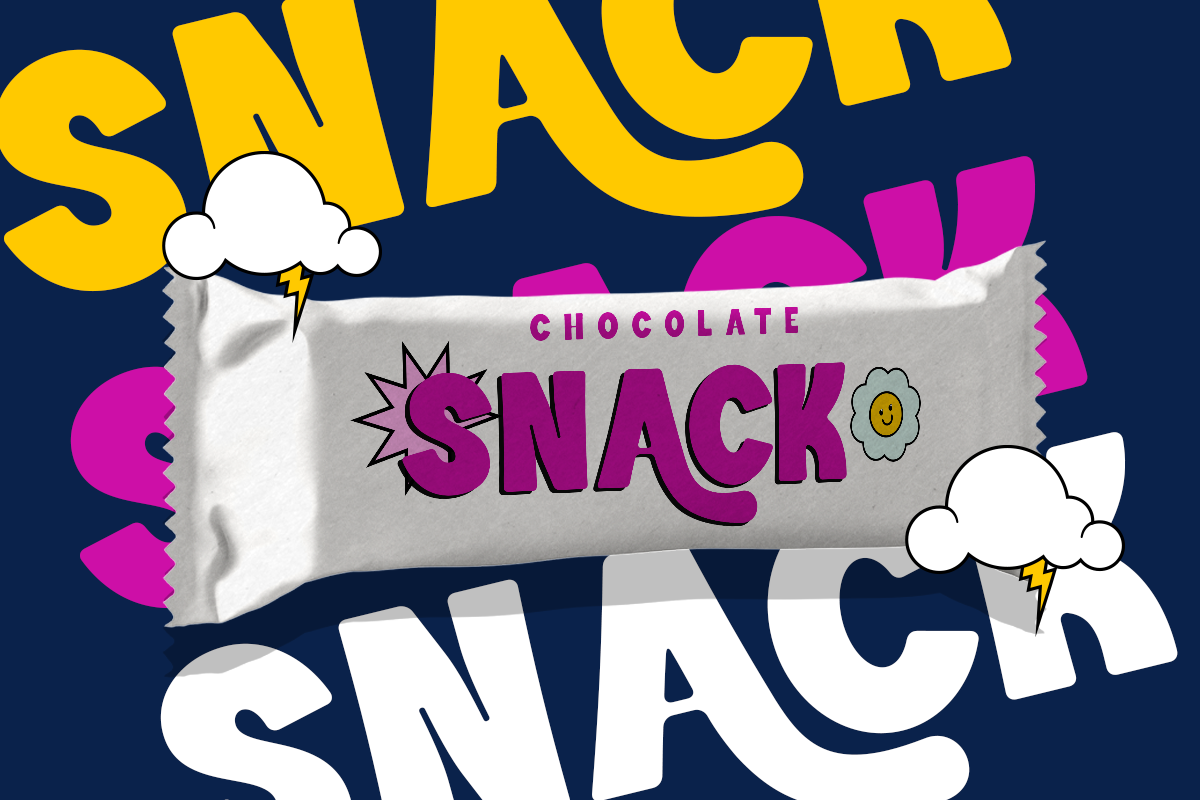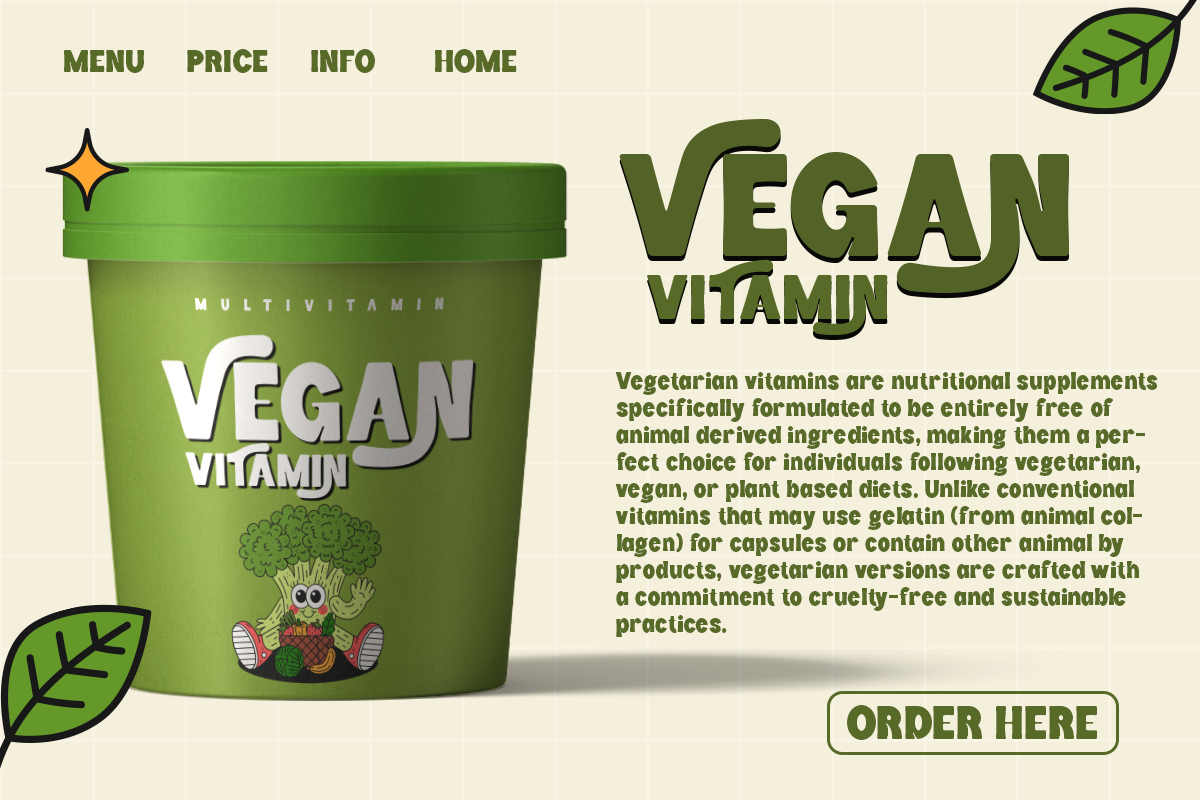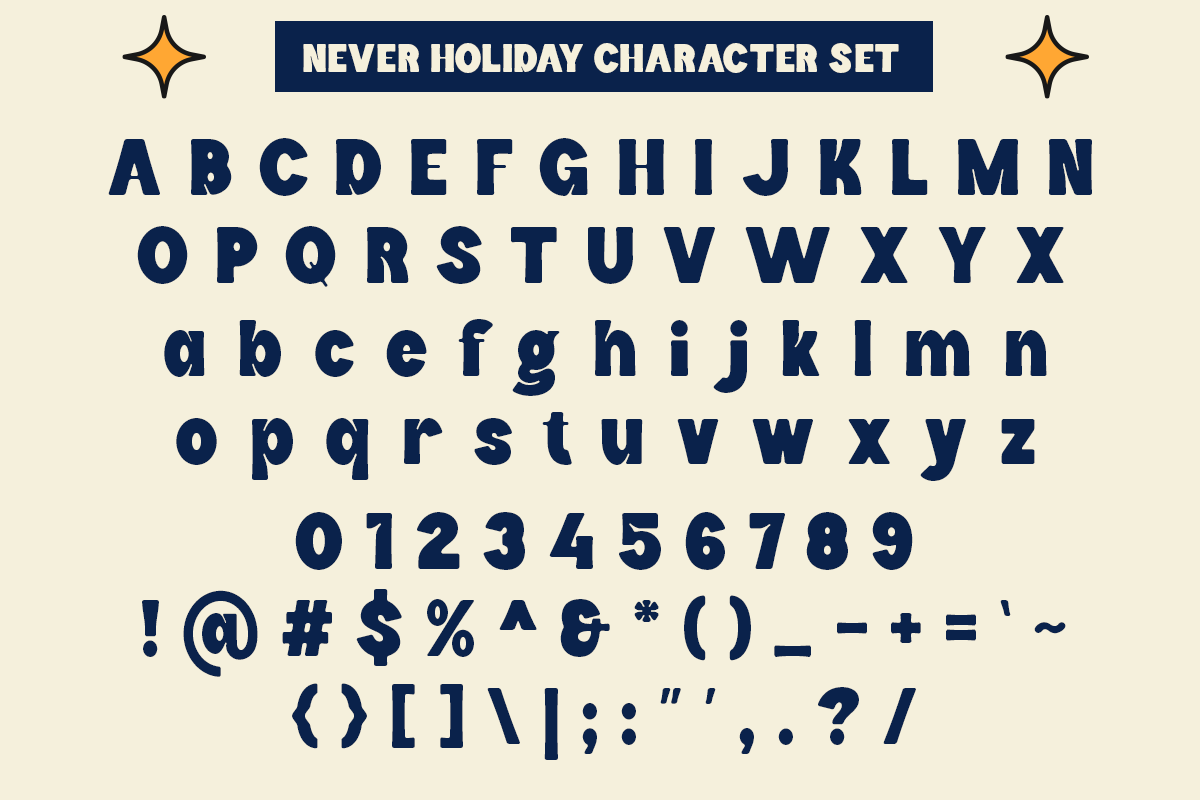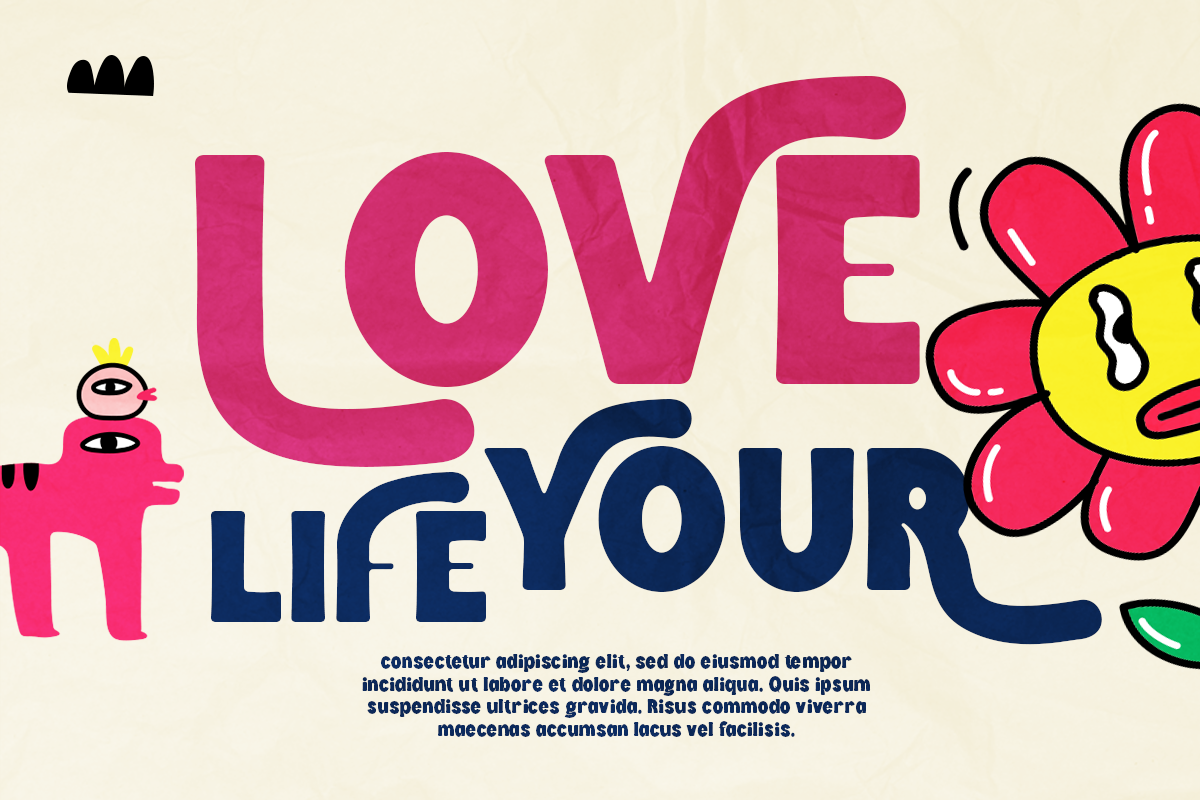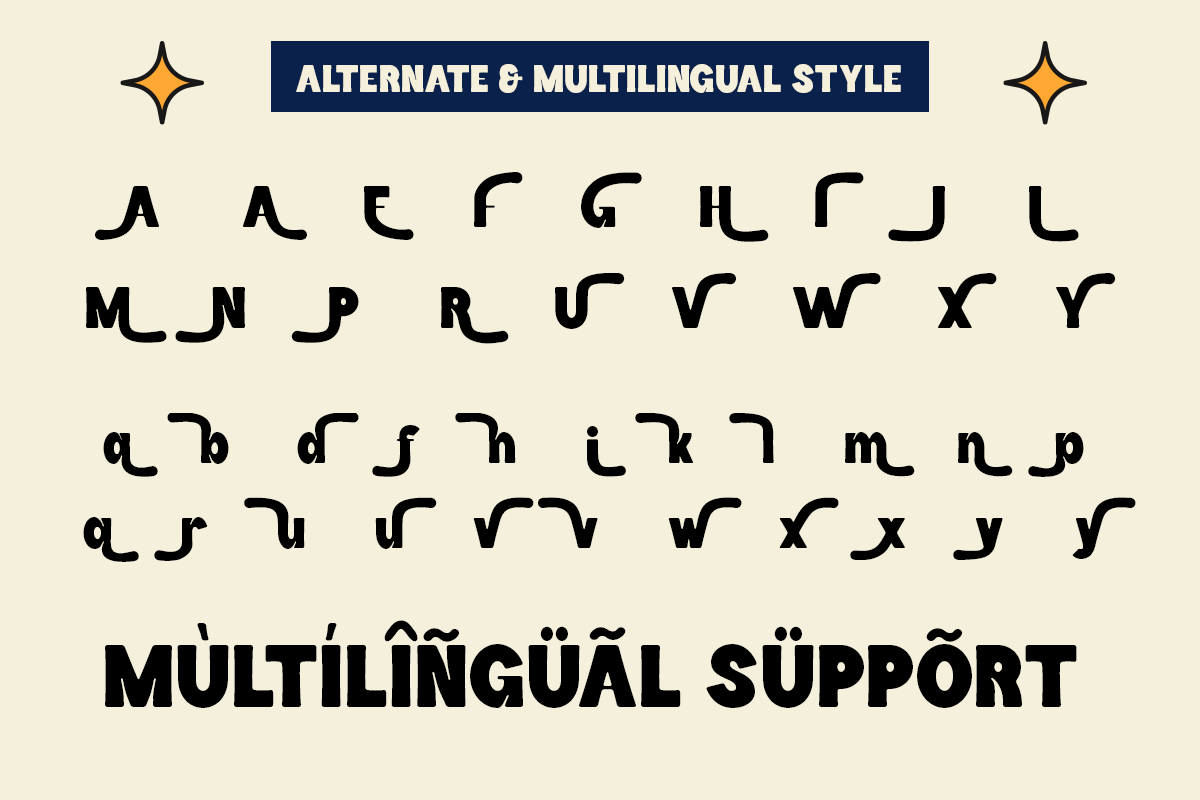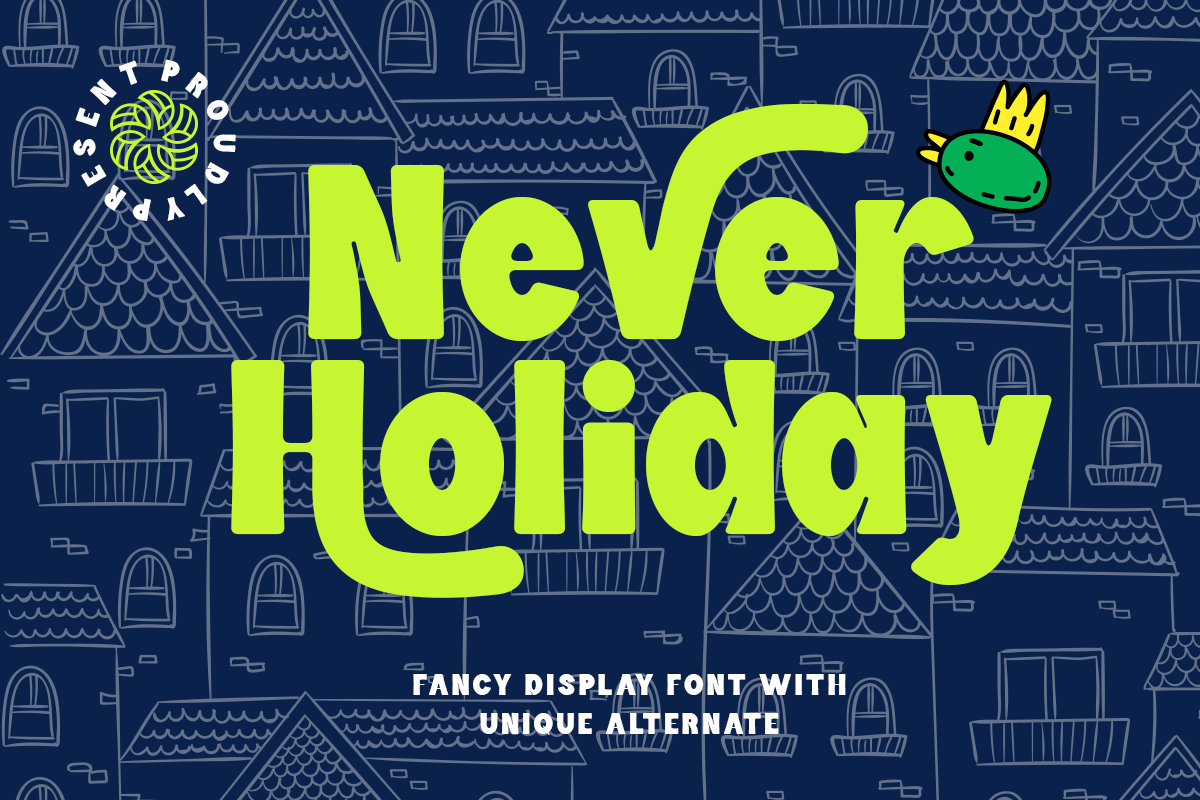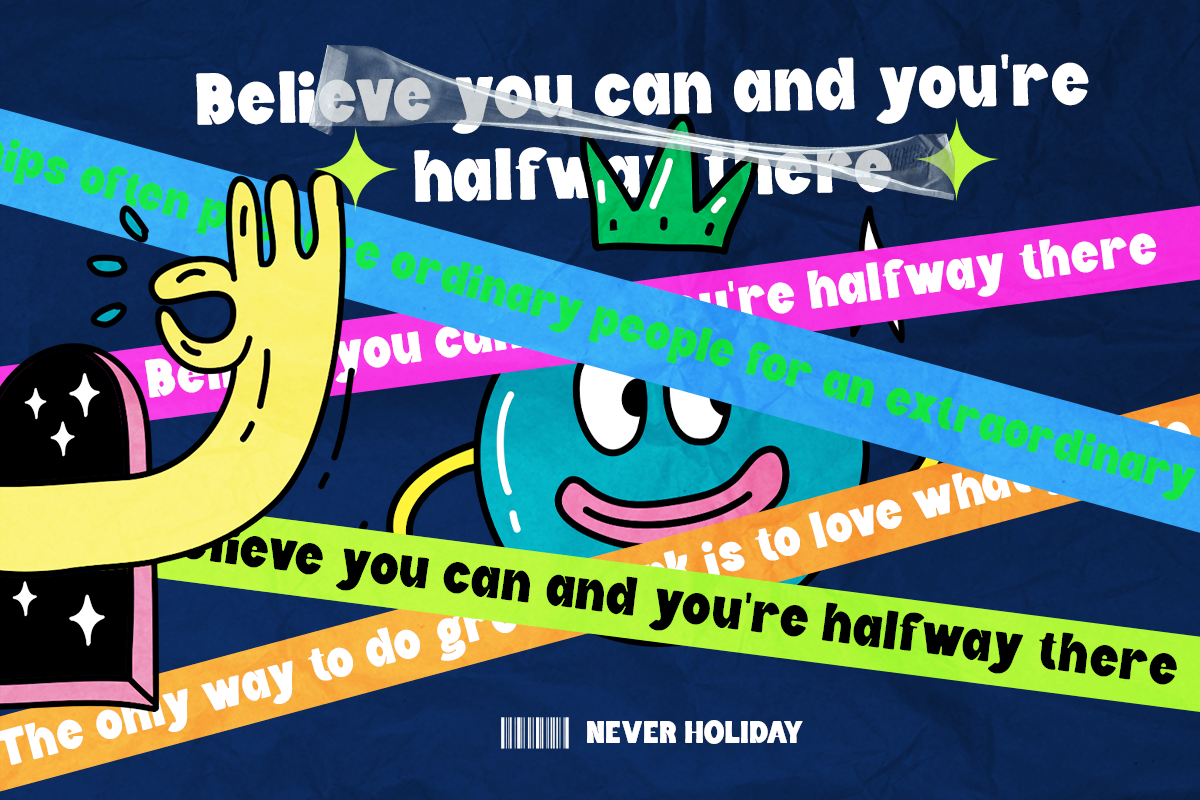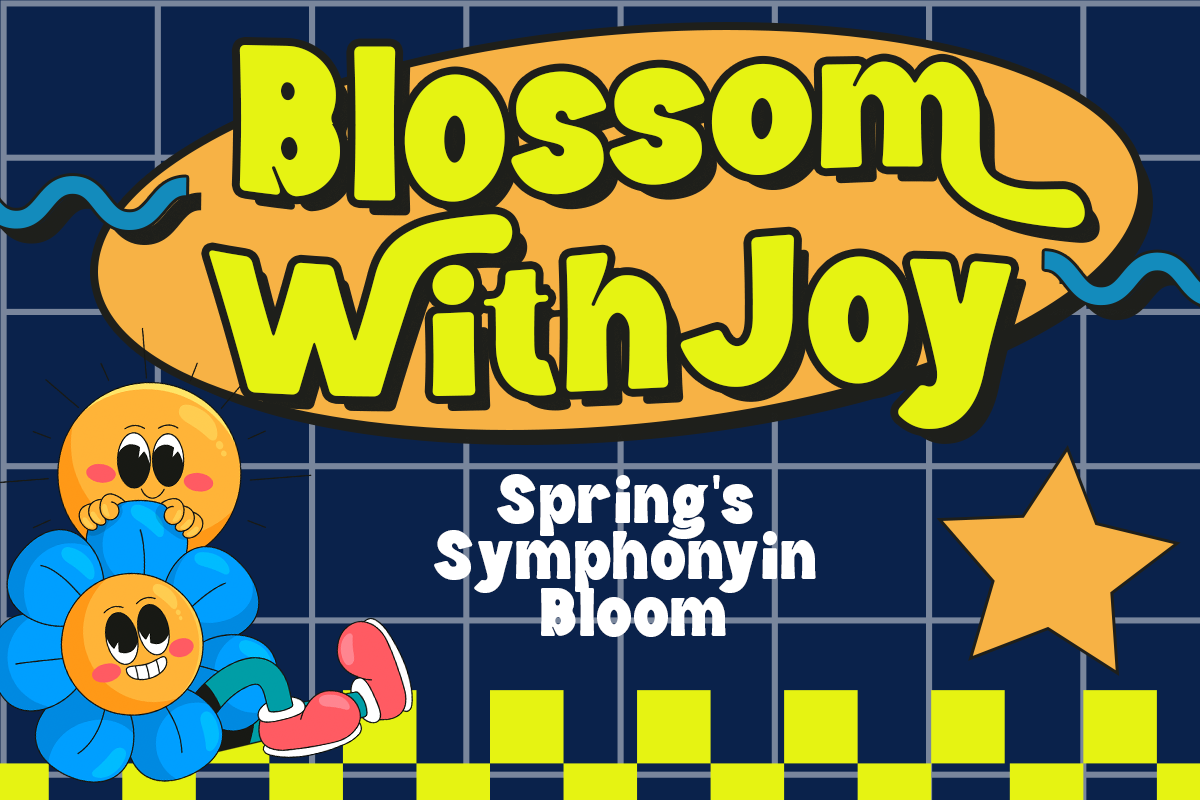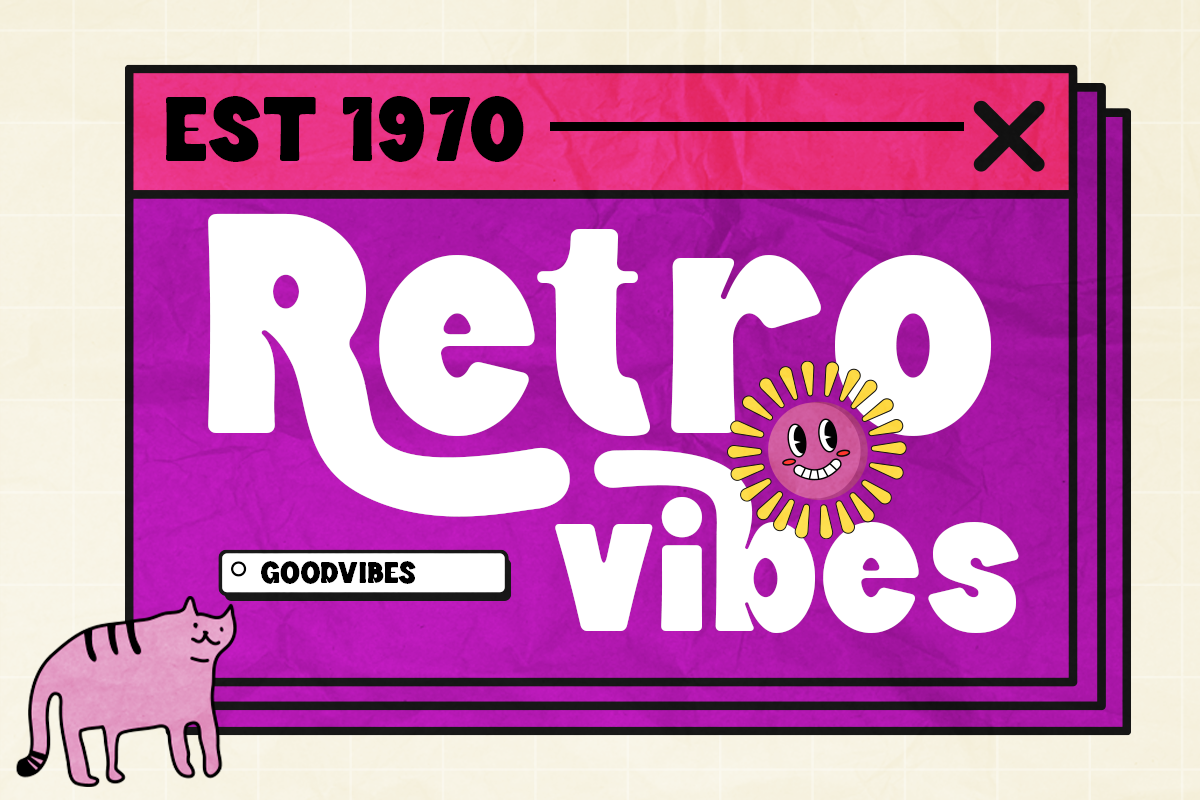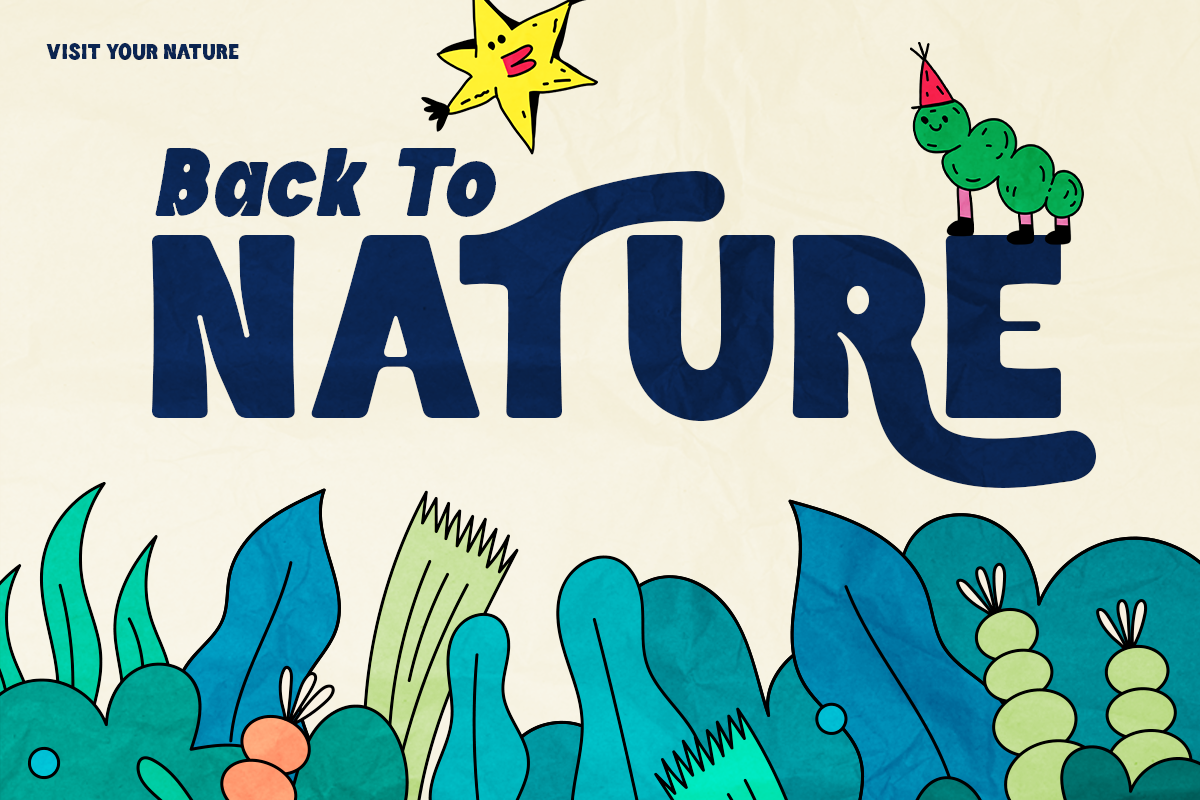
Never Holiday - Fancy Retro Font
Never Holiday – Playful Retro Fancy Display Font
Never Holiday is a fancy display font bursting with personality, blending cheerful retro vibes with a fresh, modern twist. Featuring bold shapes and creative alternates, this font brings a fun, quirky, and eye-catching look that’s perfect for all kinds of creative projects.
Ideal for posters, packaging, branding, streetwear, quotes, children’s designs, merchandise, and social media graphics, Never Holiday adds a bold, cheerful, and stylish touch that instantly stands out.
- Regular and Italic style
- Alternate Characters